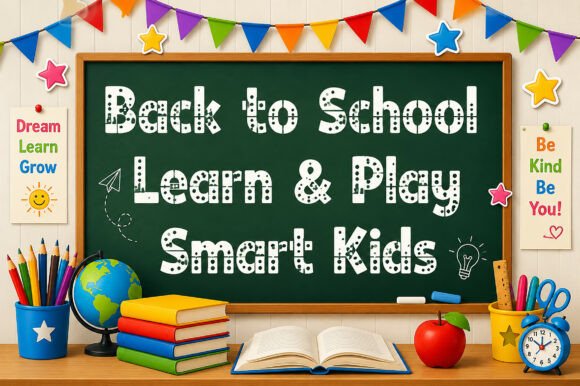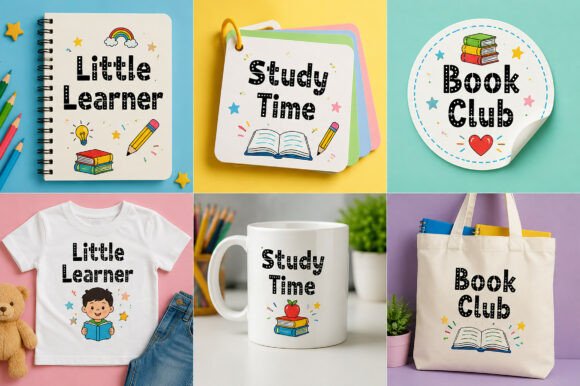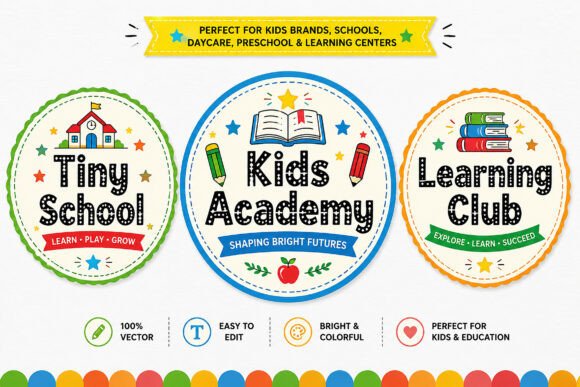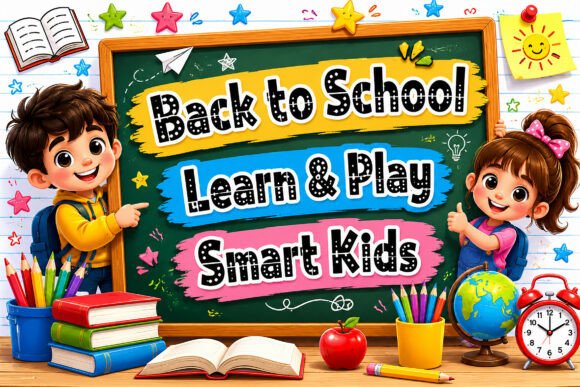
Introduction to Little Scholars Font
Little Scholars is a fun, playful, and educational display font designed especially for children-focused projects.
With its bold letterforms, decorative dotted details, and friendly personality, this font brings creativity and excitement to every design Perfect for school-themed graphics, classroom decorations, educational materials, childrenโ€™s books, worksheets, learning resources, toy packaging, kids branding, and playful merchandise.
Key Features of Little Scholars Font
Why Choose Little Scholars Font?